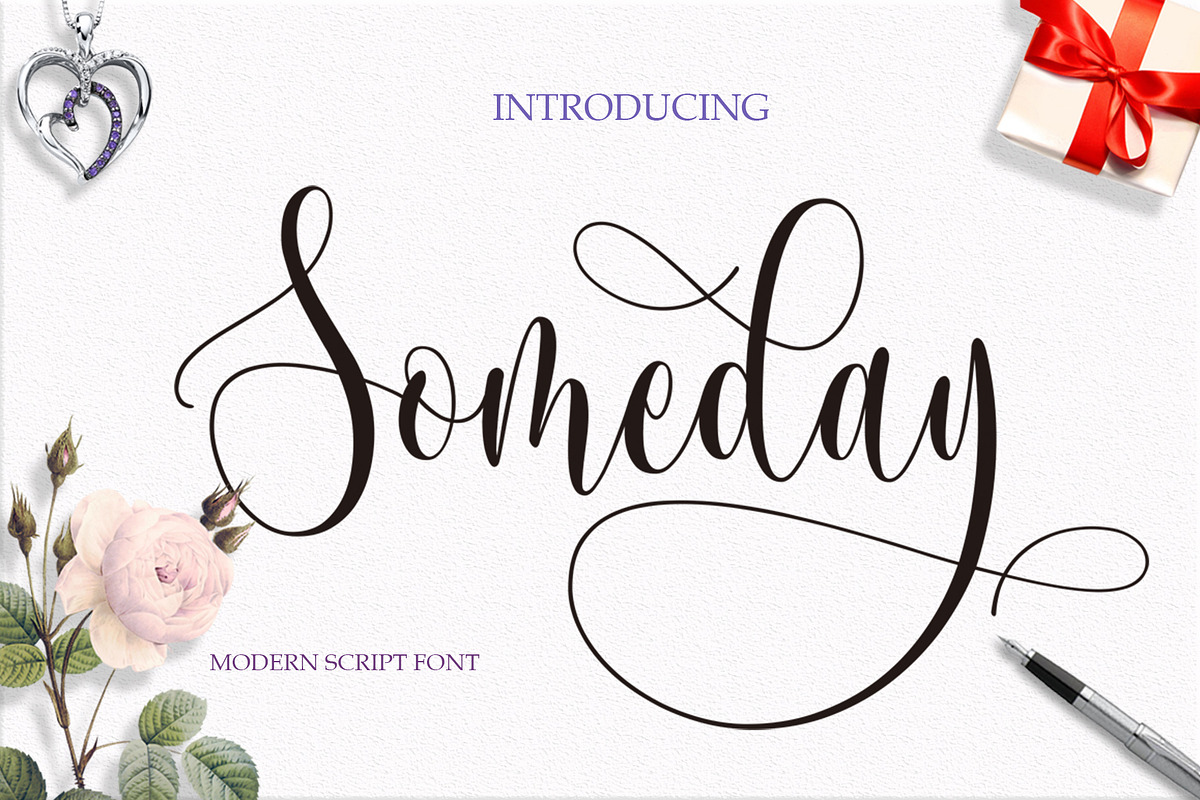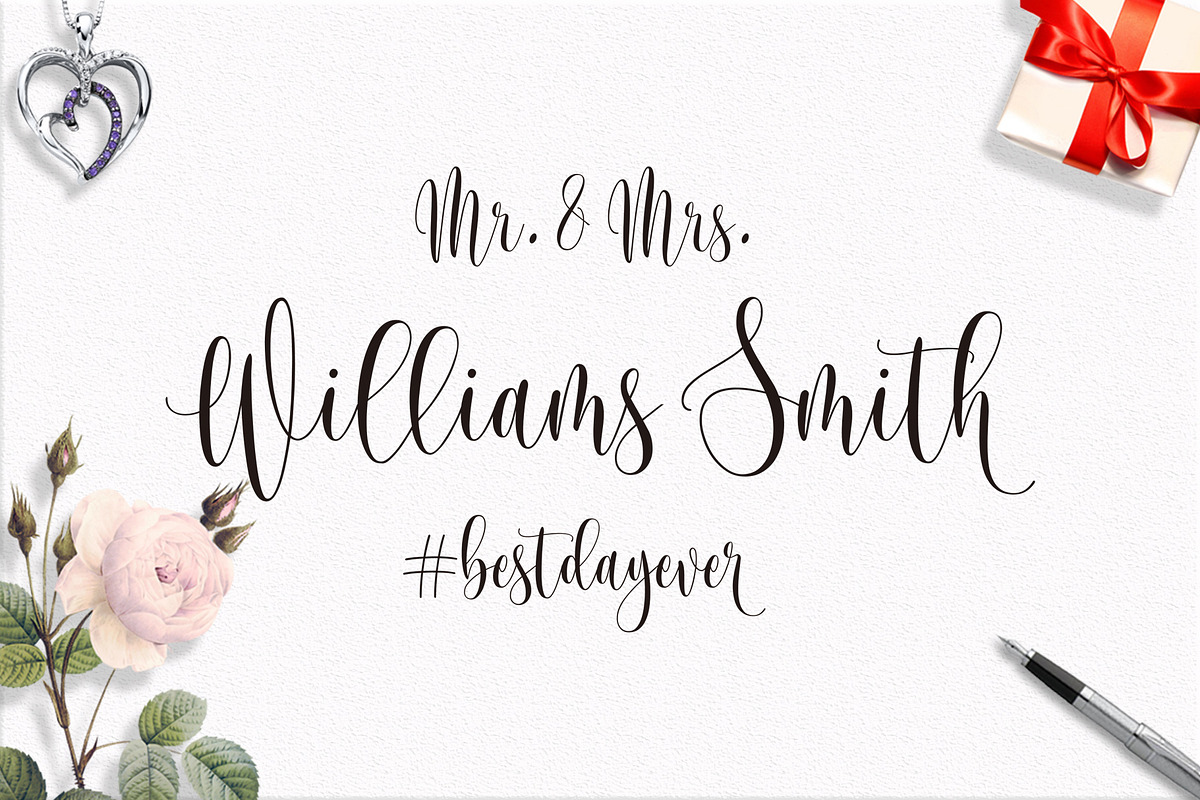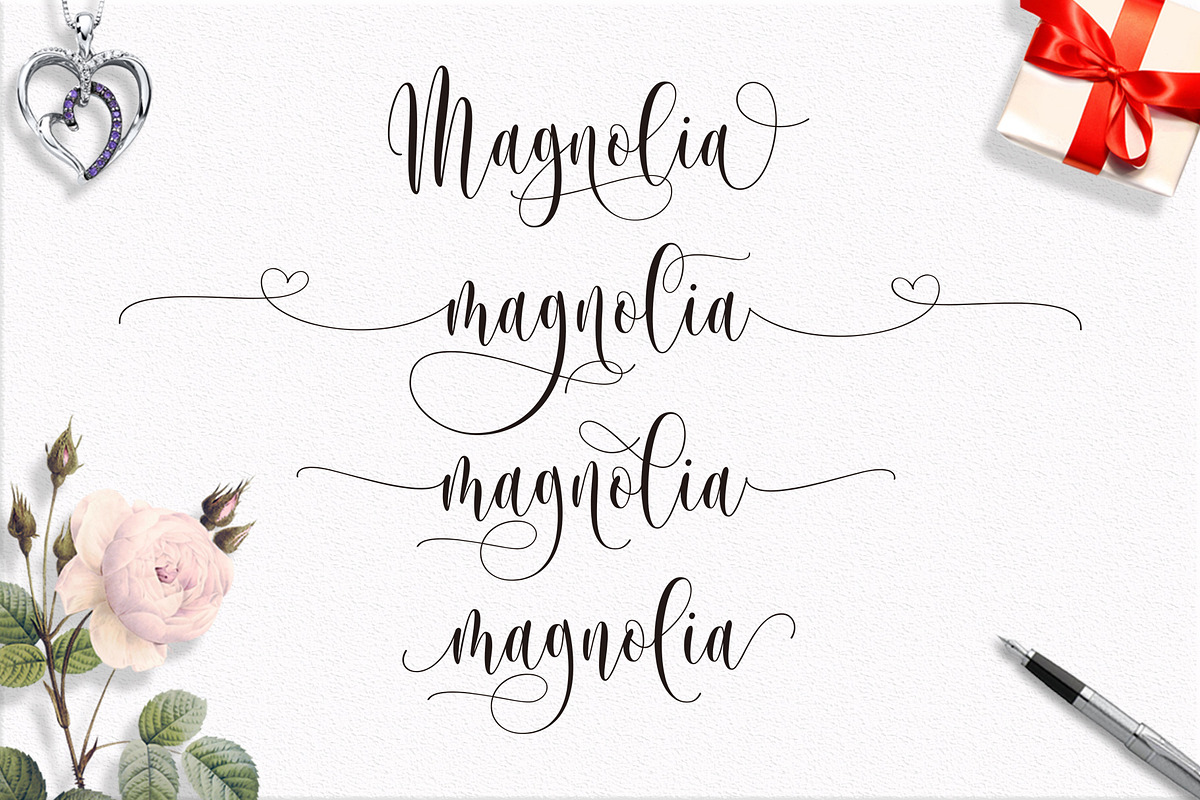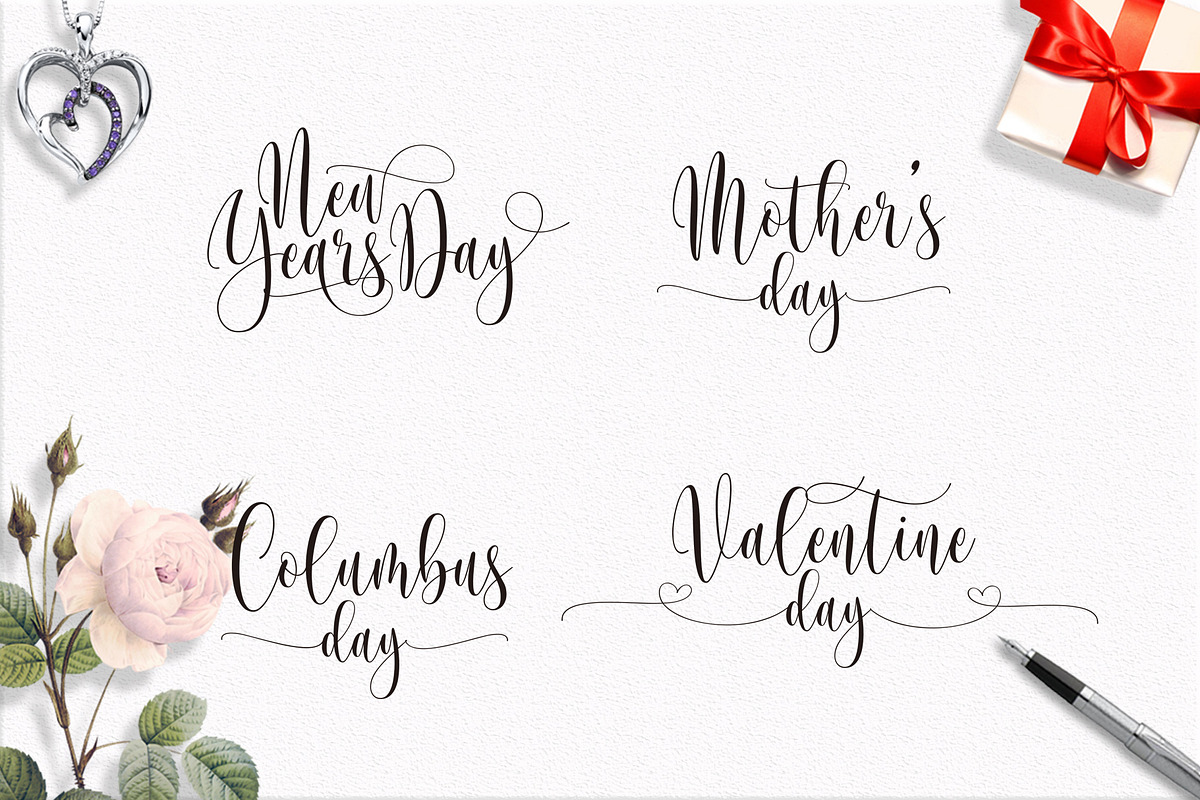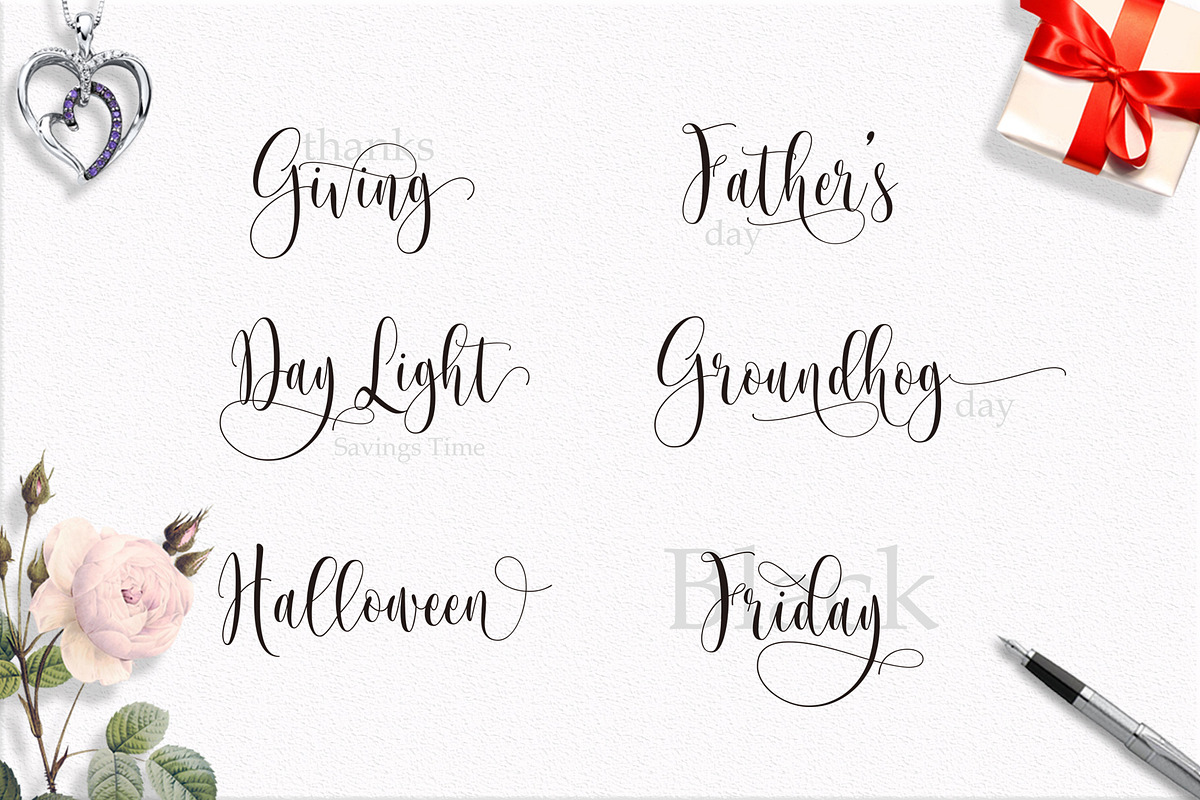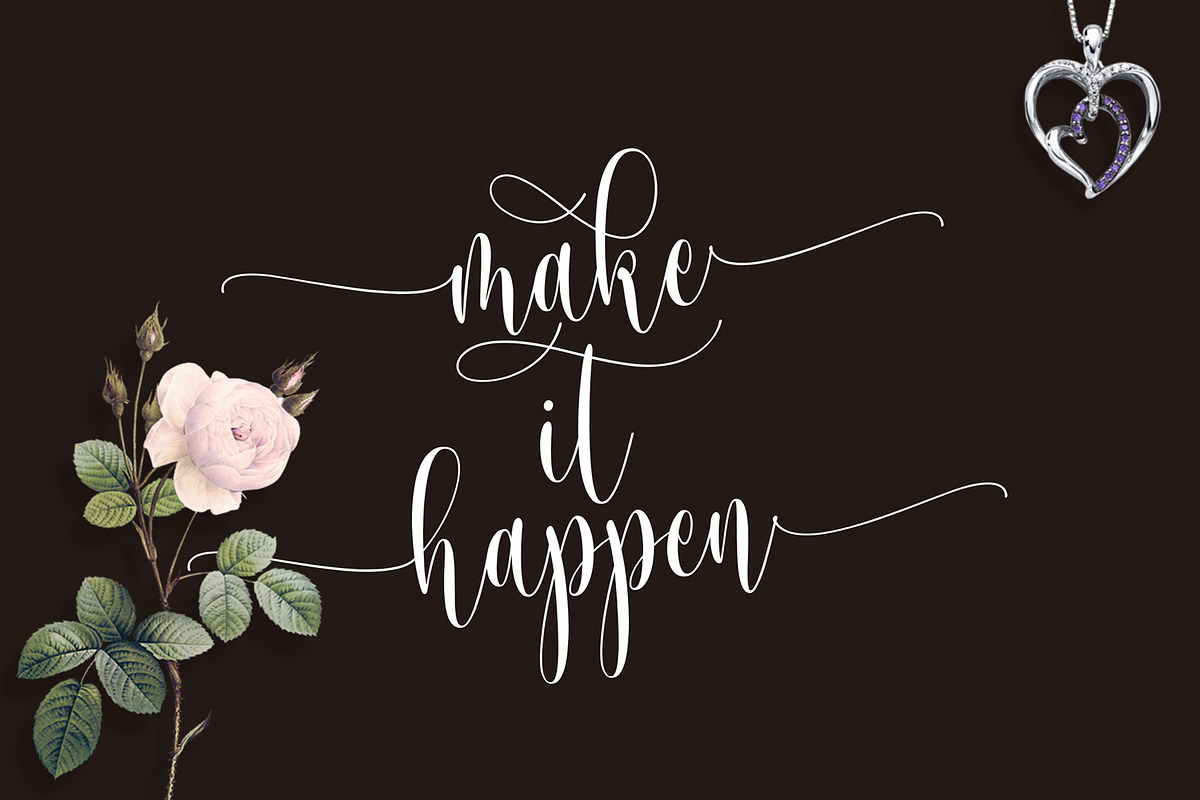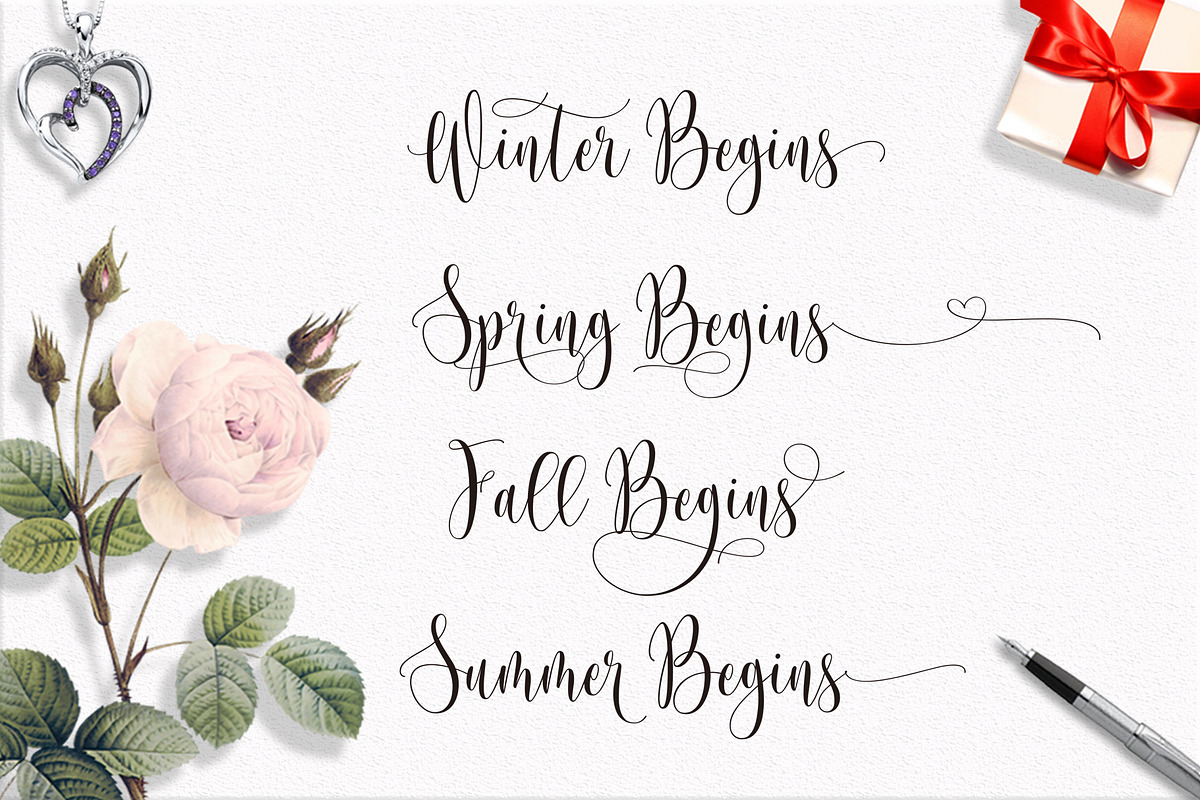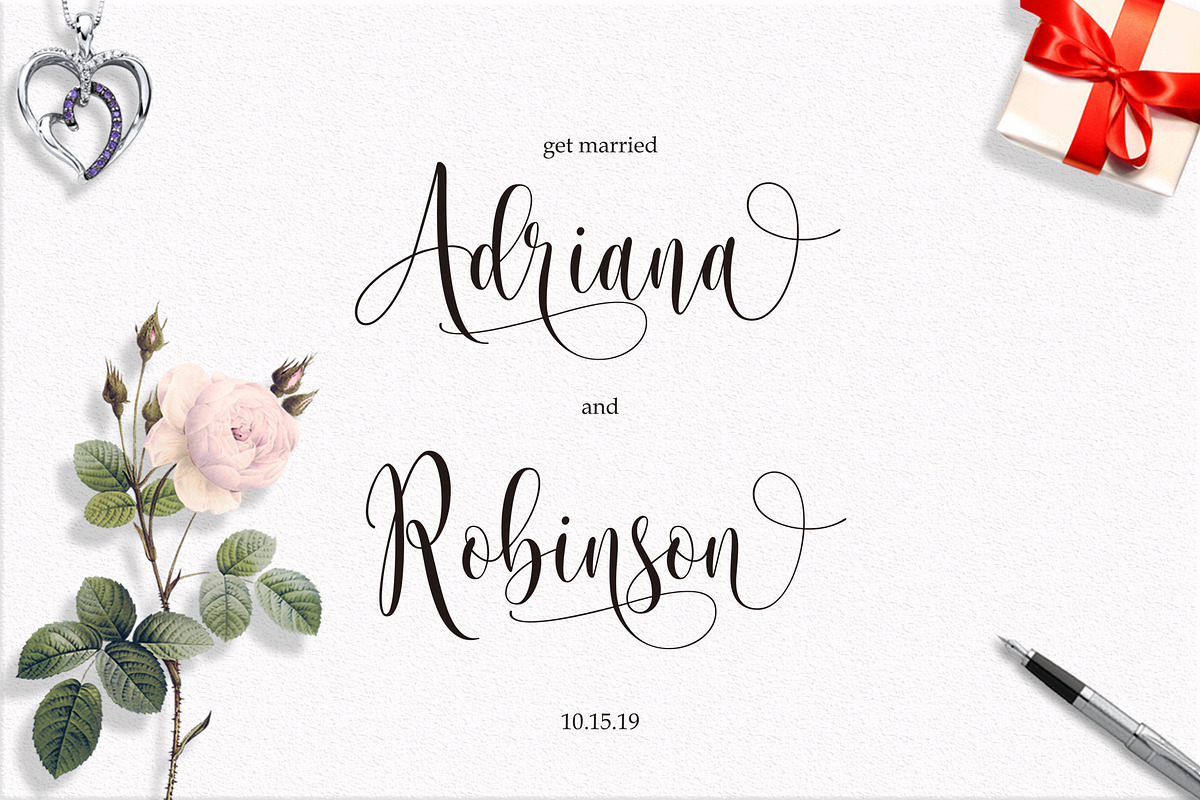
Someday Script Font
"Fonts with charming softness and glyps"
This is perfect for branding, wedding invitations and cards.
Someday Script Font includes a complete set of upper and lower case letters, numbers, various punctuation marks and ligature. All lowercase letters include beginning and ending swash.
- Someday Script Font includes a complete set of upper and lower case letters, numbers, various punctuation marks and ligature.
- All lowercase letters include beginning and ending swash.
Someday Script Font by Byuly Ayika fits naturally into Branding, posters, packaging, typography.